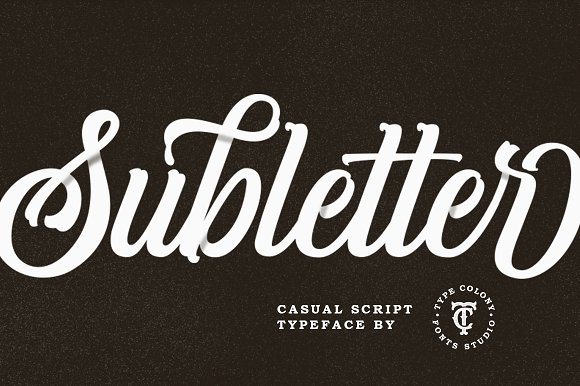
Subletter Script Font
Subletter Script is a casual script typeface with stylist style, clean, and great movement this typeface and allow you to make lettering and logotype quickly and easily. This typeface is inspired by brush lettering and sign painting that have strong styles and classy for using on project such as Logotype, Letterhead, Poster, Apparel Design, Label and etc.